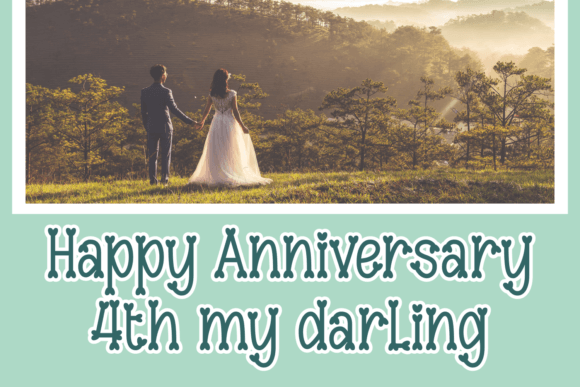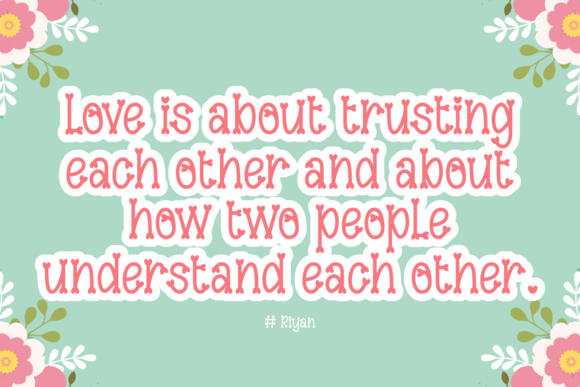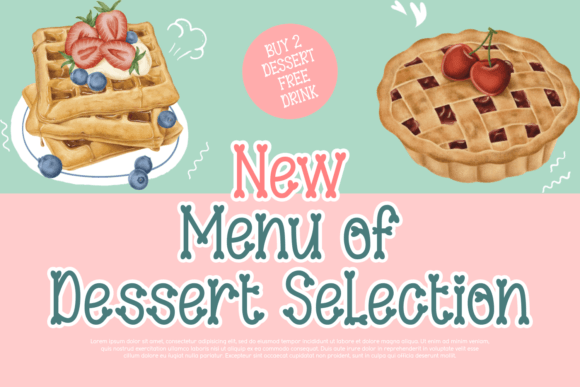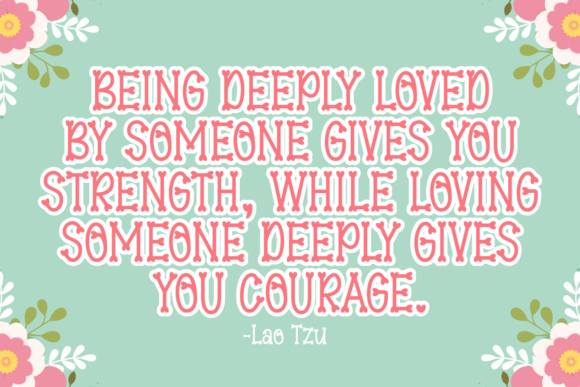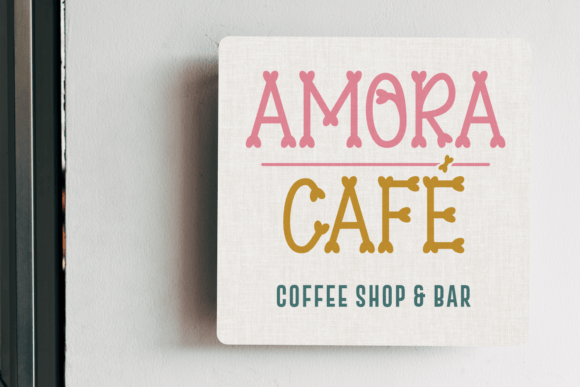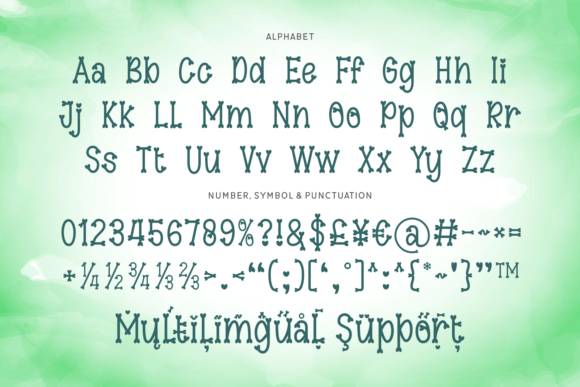
Introduction to Making Easier Font
Have you ever been working on a creative project, pouring your heart and soul into it, only to realize that the font just doesn’t match the vibe you’re going for? That’s when I fell in love with the Making Easier Font – a delightful decorative font that adds an extra touch of sweetness to any design.
With its adorable little hearts at the edges, this font is perfect for expressing your love and affection on special occasions like Valentine’s Day, anniversaries, and weddings. But what really sets it apart is its high-quality design and transparent background, making it a valuable resource for designers looking to elevate their creative projects.
Key Features of Making Easier Font
- High Quality Design: Our Making Easier Font is designed with precision and care, ensuring a high-quality result for your creative project.
- Transparent Background: The Making Easier Font features a transparent background, allowing you to easily integrate it into your design without any distractions.
- High Resolution: The Making Easier Font is designed at a high resolution of 300 DPI, making it perfect for printing and other high-quality applications.
- Size: The font is available in 3 sizes, including Small, Medium, and Large, allowing you to customize it to fit your design needs.
- Perfect for Creative Projects: The Making Easier Font is an excellent design resource for various creative projects, including graphic design, digital art, and more.
Honest Review: Making Easier Font
As a designer, I’m always on the lookout for high-quality design resources that can elevate my creative projects. I recently had the chance to try out the Making Easier Font, and I’m excited to share my honest review with you.
- ✨ The font is highly legible, making it perfect for body text and captions.
- ✨ The transparent background option allows for seamless integration with any design element.
- ✨ The design is clean and modern, making it perfect for a variety of creative projects.
- ⚠️ The font selection is limited, with only a few styles available.
- ⚠️ The font may not be suitable for use in small font sizes, as it can become difficult to read.
Overall, I was impressed with the Making Easier Font. While it may have some limitations, it’s a great resource for designers who need a high-quality, free font for their creative projects. With a bit more development, I think this font could become a go-to choice for designers everywhere.
Making Easier Font
Use the font to create a visually appealing design with a transparent background, adding depth and dimension to your work.
Making Easier Font is perfect for:
- Creating social media graphics
- Designing business cards
- Developing branding materials
- Adding a touch of elegance to presentations